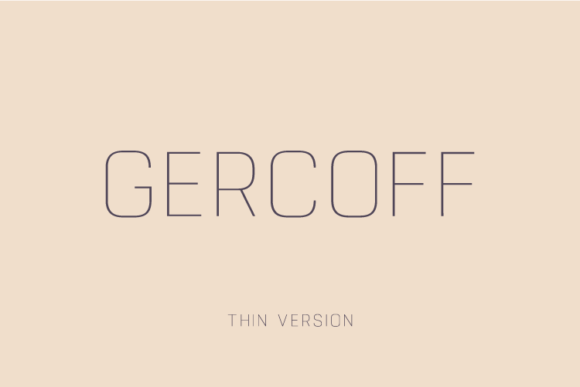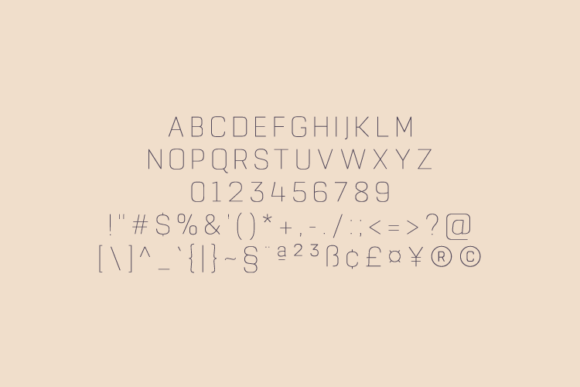
HomeSans Serif FontsGercoff Thin Font Sans Serif Fonts Gercoff Thin Font FacebookXPinterestWhatsApp Gercoff Thin Font 1 of 2 About Gercoff Thin Font Gercoff is a clean and simple vintage sans serif font with smooth edges. It’s perfect for vintage logo designs, headers and small amounts of text. DOWNLOAD NOW People also explored Love Sierra Font Rhinestone Font Chill Lizard Dreamline Font Martani Hay Bella Font Bersahaja Font Barnyard Brunch Font Brush-It Font 335 0 TagsGercoff Thin Font Previous articleGercoff Extra Light FontNext articleLudhovicf Extra Black Font LEAVE A REPLY Cancel reply Comment: Please enter your comment! Name:* Please enter your name here Email:* You have entered an incorrect email address! Please enter your email address here Website: Save my name, email, and website in this browser for the next time I comment. Personal Use Free Vuldo Personal Use Free Read more about this font Barokah Personal Use Free Read more about this font Shelly Personal Use Free Read more about this font Mold Papa Personal Use Free Read more about this font BLOG The 10 Best Handwriting Fonts to Add Personality to Your Designs 10 of the Best Handwriting Fonts for Adding Personality to Your Designs There will undoubtedly be no other better choice than handwriting fonts to give... 5 Fonts That Will Dominate Design Trends in 2026 Free Fonts Risk: Why Free Fonts Can Be Dangerous for Designers To increase your work productivity, choose the most readable fonts.